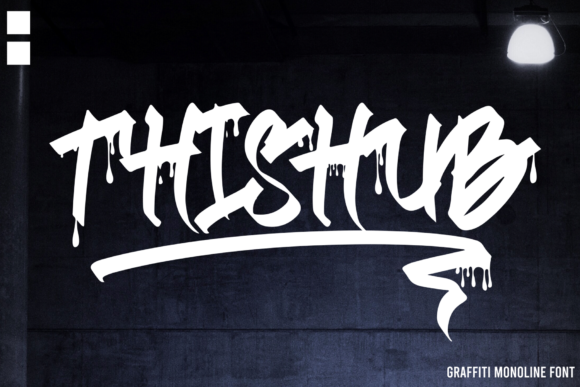
Thishub: Elevate Your Editorial Designs with Urban Flair
Thishub is a display font that brings a unique, monoline graffiti style to your editorial projects. With its bold, urban aesthetic, Thishub can transform your designs, making them stand out and engage readers in a fresh and dynamic way.
Visual Characteristics and Style
Thishub's monoline graffiti style is characterized by clean, consistent strokes, giving it a modern and edgy feel. The font's personality is vibrant and energetic, making it perfect for adding a touch of urban cool to your editorial content. Whether you're working on a lifestyle blog, a digital magazine, or an ebook, Thishub can help you set the right tone and capture the reader's attention.
Editorial Appeal and Versatility
Supporting Visual Hierarchy and Reader Attention
Thishub is particularly effective for titles, subtitles, and other prominent text elements. Its distinct style helps establish a clear visual hierarchy, guiding the reader's eye through the content. For example, using Thishub for the main heading of a wedding guide can instantly set the mood and theme, while a clean serif or sans serif font can be used for the body text to ensure readability.
Readability Considerations
While Thishub is highly effective for titles and headings, it may not be the best choice for longer passages of text. For body copy, consider pairing Thishub with a readable serif or sans serif font. This combination ensures that your content remains accessible and easy to read, whether on screens, PDF exports, mobile devices, or in print.
Font Pairing for Editorial Use
To create a balanced and harmonious design, pair Thishub with complementary fonts. A clean, classic serif font like Garamond or a modern sans serif like Lato can work well for body text. This pairing maintains a professional and polished look while allowing Thishub to shine in its role as a display font.
Thishub is a powerful tool for elevating your editorial designs. By incorporating this display font into your projects, you can create a unique and engaging visual experience that resonates with your audience and sets your content apart.